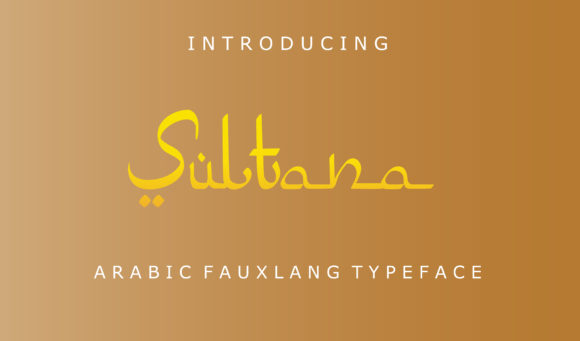
Embark on a Typographic Adventure with Sultana Font: Unveiling the Essence of Faux Arabic Grandeur
In the realm of digital artistry, where fonts hold the power to transform words into captivating expressions, Sultana Font emerges as a mesmerizing creation that pays homage to the rich calligraphic heritage of the Arabic language. This meticulously crafted script font transcends the boundaries of traditional typography, beckoning you to explore a world of enchanting aesthetics and boundless creativity.
Sultana's meticulously designed characters exude an air of authenticity, capturing the essence of Arabic calligraphy while maintaining a distinct contemporary flair. Each letterform is a testament to the artistry of its creator, kakasoto, who has breathed life into this faux Arabic script with intricate details and sweeping curves.
Unleash Your Inner Storyteller:
Sultana Font is an invitation to unleash your inner storyteller, to weave tales that resonate with the allure of the Middle East. Whether you're a graphic designer seeking to craft captivating logos and branding elements, a web designer seeking to add a touch of exotic elegance to your creations, or simply a creative soul seeking to add a dash of charm to your personal projects, Sultana Font stands ready to be your muse.
Embrace the Power of Visual Persuasion:
In the realm of marketing and branding, visual appeal reigns supreme. Sultana Font empowers you to create designs that leave a lasting impression, capturing the attention of your audience and leaving them spellbound. Its unique aesthetic adds a touch of sophistication and intrigue that sets your creations apart from the mundane.
Embark on a Journey Through Time:
Sultana Font transports you to a bygone era, where the art of calligraphy flourished and words were transformed into visual masterpieces. Its intricate designs evoke a sense of nostalgia and romance, inviting you to explore the rich cultural heritage of the Middle East through the medium of typography.
Experience the Beauty of Diversity:
Sultana Font embraces diversity, seamlessly blending the charm of the Arabic script with a modern sensibility. It complements a wide range of design styles, from traditional to contemporary, allowing you to experiment and create designs that reflect your unique vision.
A Versatile Workhorse for Your Creative Endeavors:
Sultana Font is a versatile workhorse that adapts seamlessly to a myriad of creative projects. Whether you're crafting logos, branding elements, website designs, social media graphics, or any other visual expression, Sultana Font rises to the occasion, delivering exceptional results that will captivate your audience.